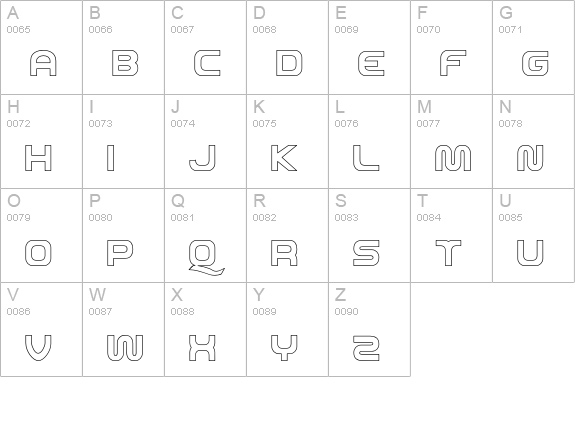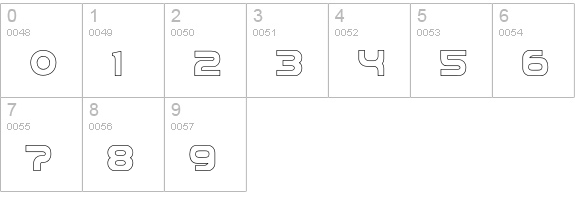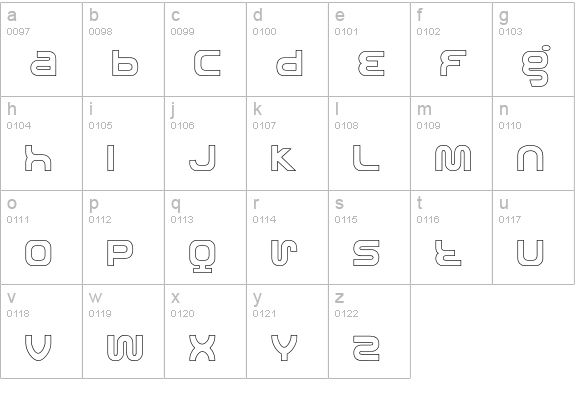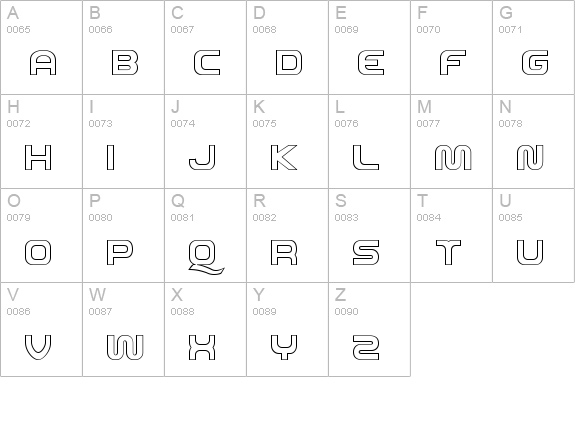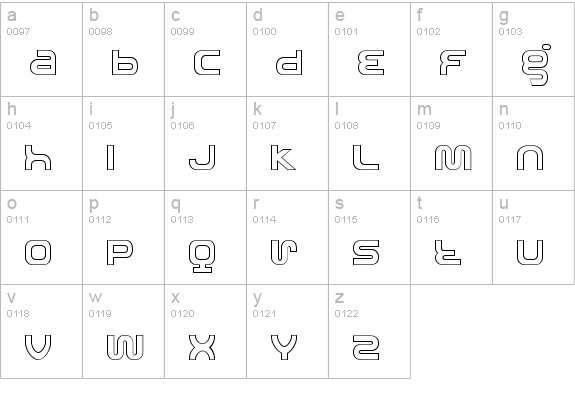
RolandTR606 Font Details
Introducing RolandTR606 font, a sleek and modern typeface designed to make your designs stand out. This font features clean lines and a contemporary aesthetic that is perfect for a wide range of projects. Whether you're working on branding, advertising, or any other creative endeavor, RolandTR606 is sure to make a bold statement. One of the best things about RolandTR606 font is that it is completely free to download. You can get your hands on this versatile typeface at FontsMarket.com, where you'll find a wide selection of high-quality fonts for all your design needs. Don't miss out on the opportunity to add RolandTR606 to your font collection and take your projects to the next level.